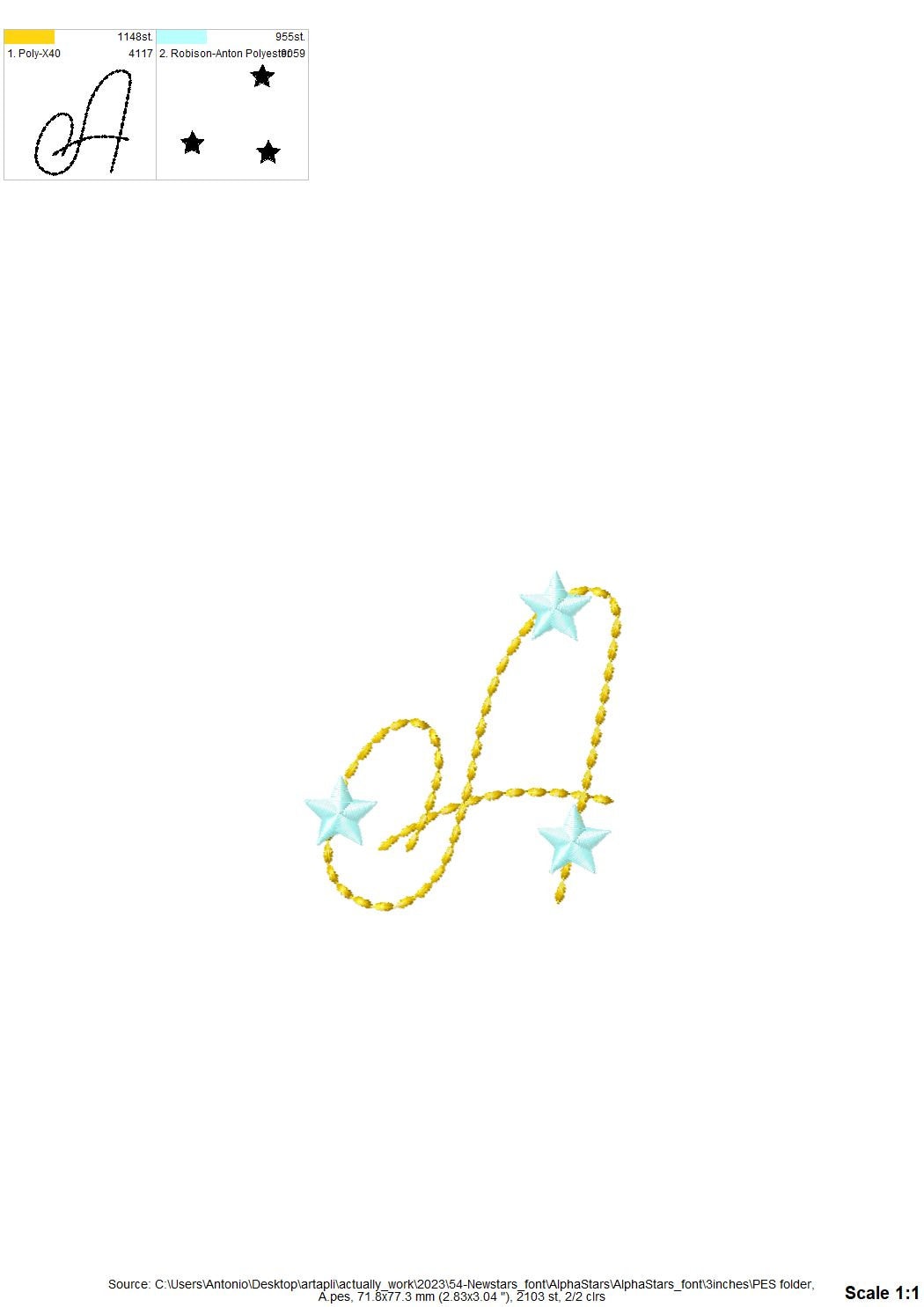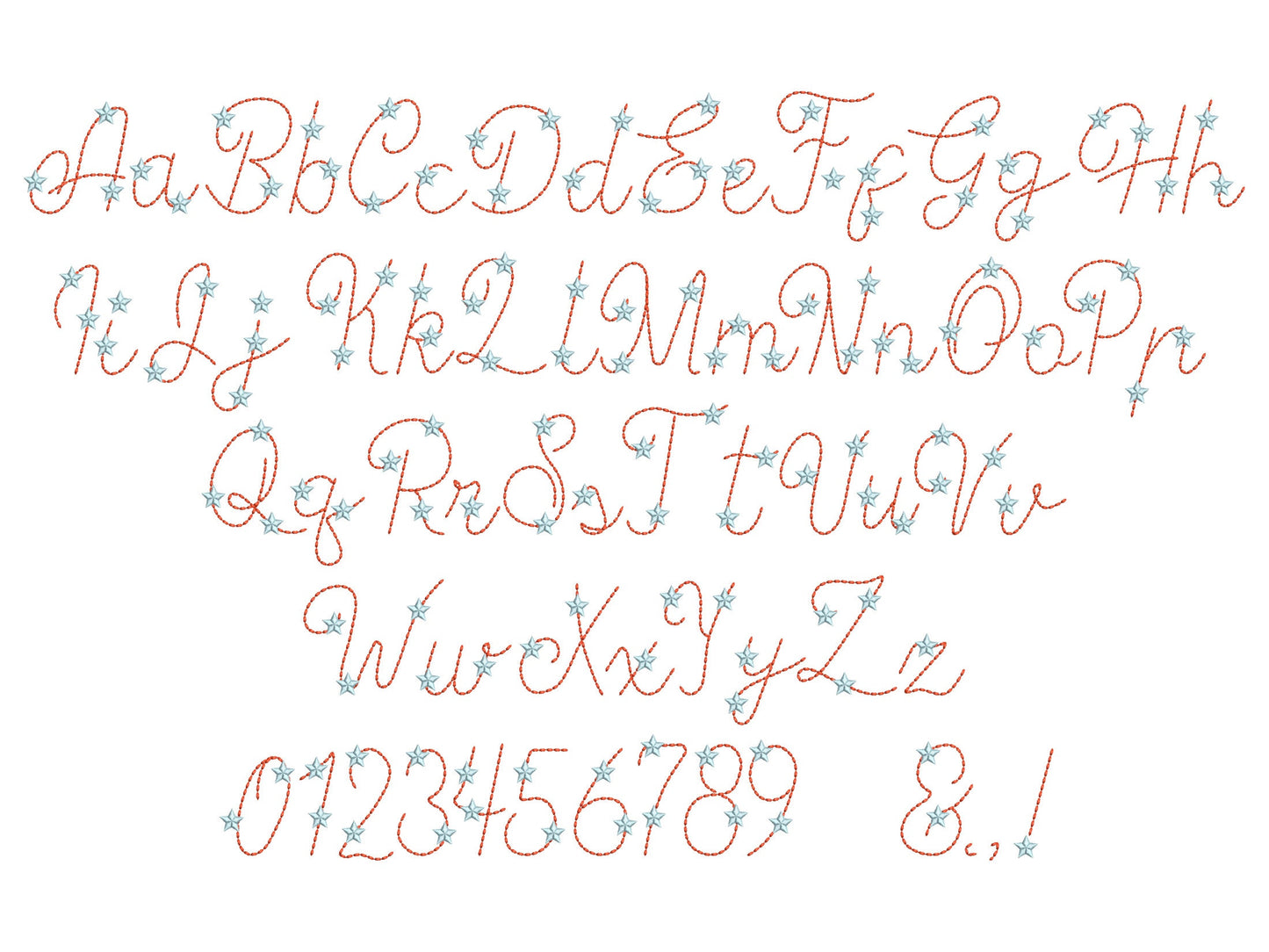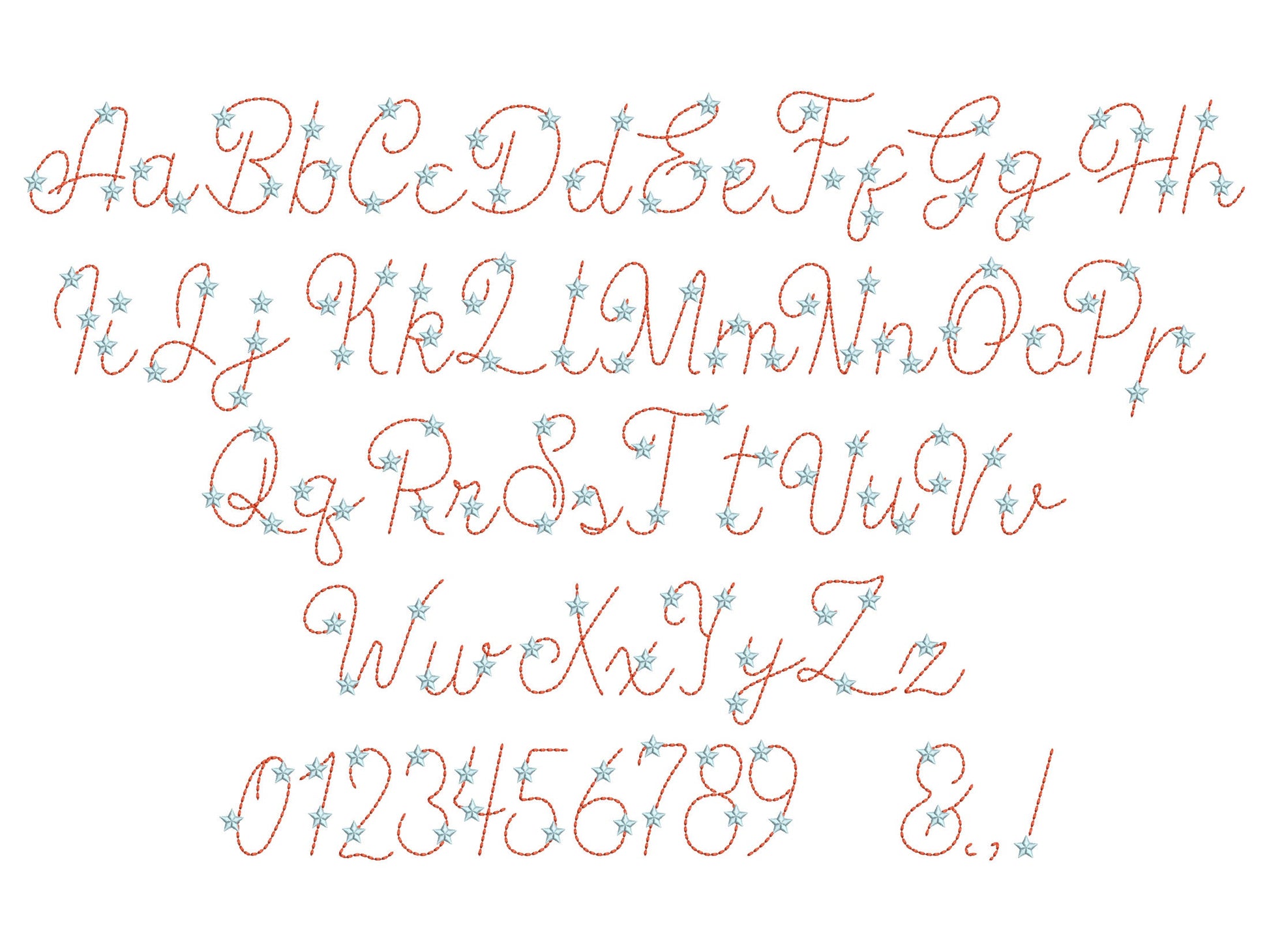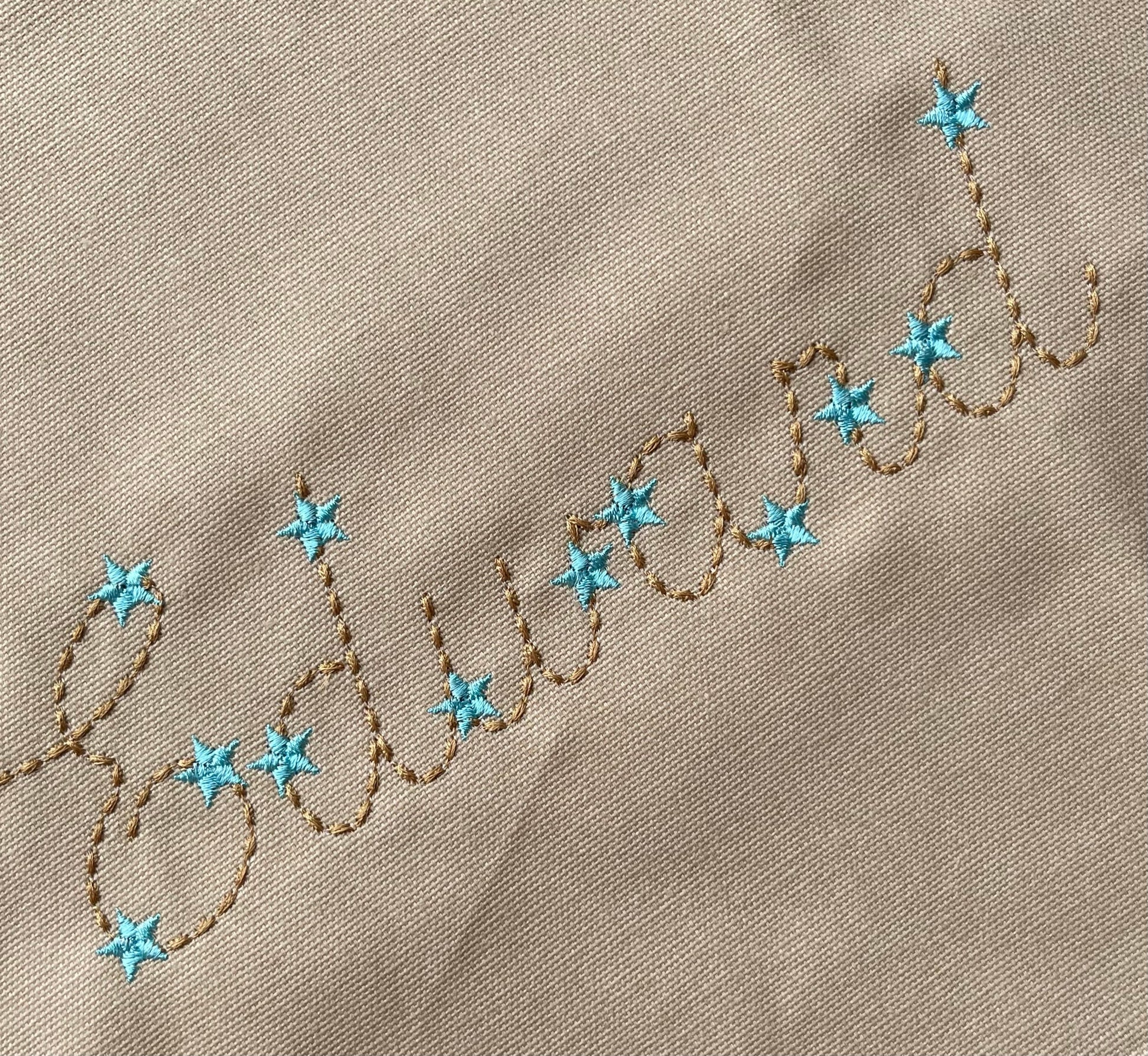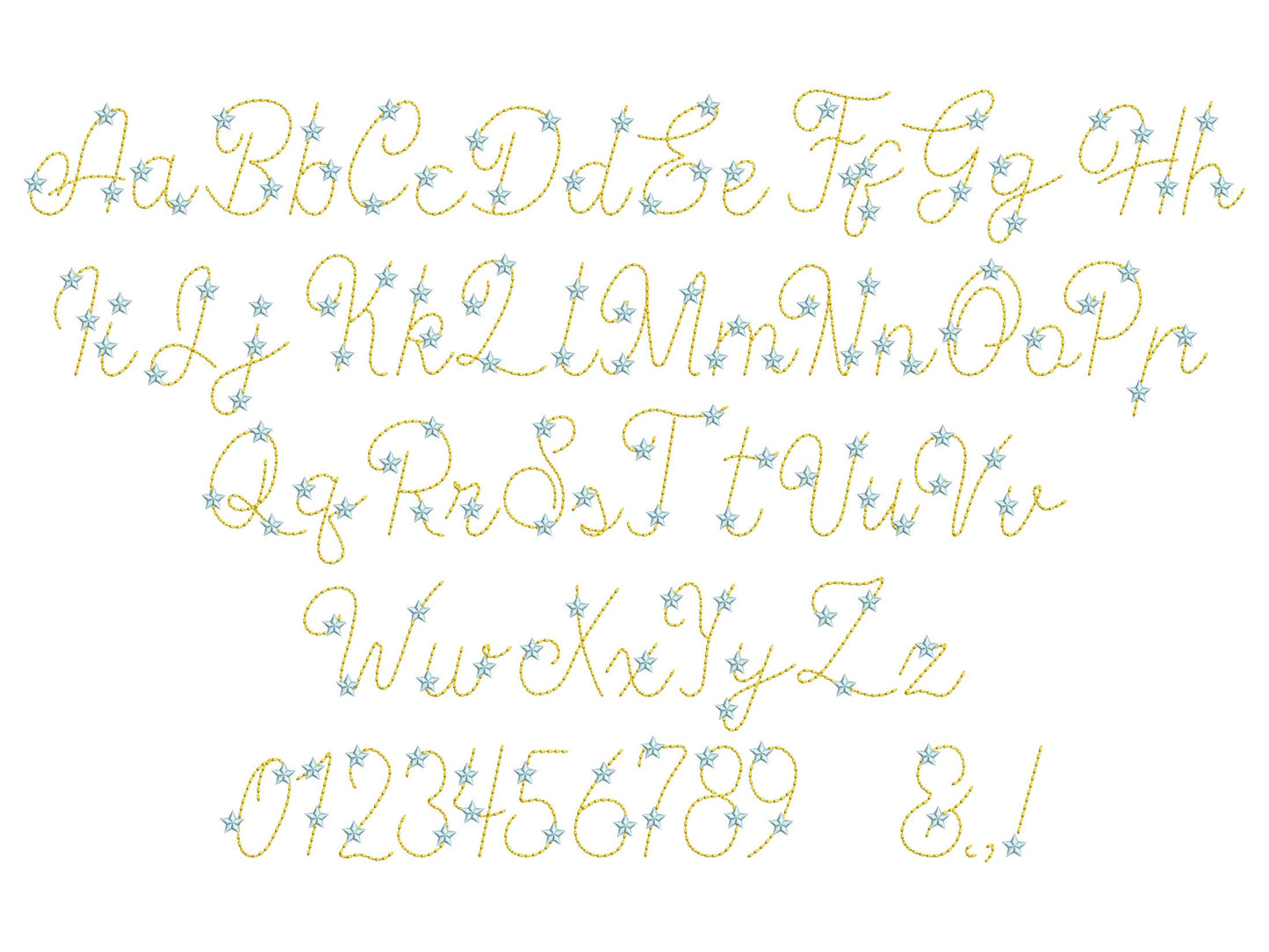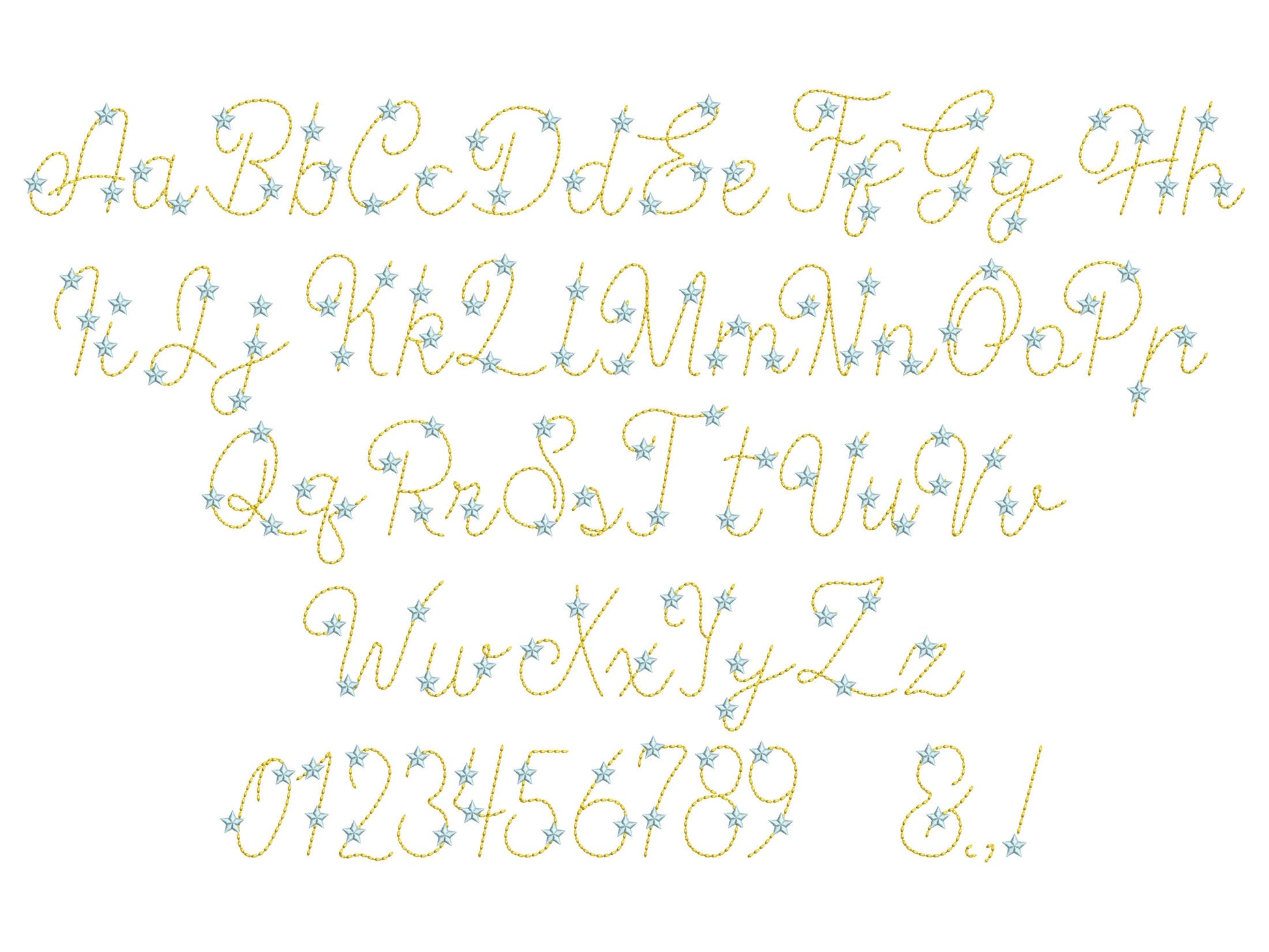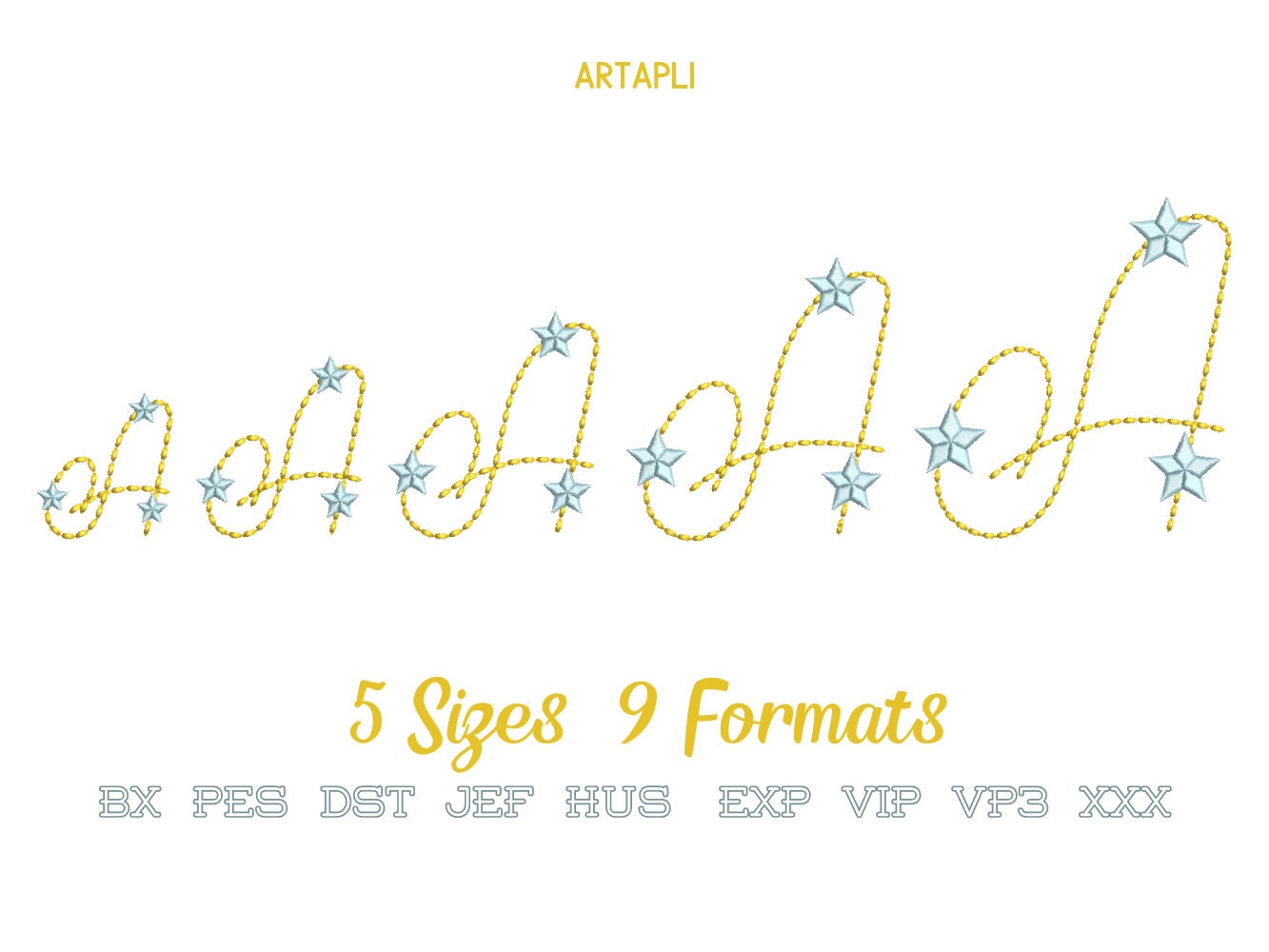
Or click to open the linkA handwritten script font with a hand-stitched look and little stars. Sweet for kids' names, monograms and gifts.
The letters come in five sizes: 2, 2.4, 3, 3.8 and 4.6 inches. A light stitch gives the letters the look of hand embroidery. Includes uppercase and lowercase letters, numbers 0 to 9 and punctuation.